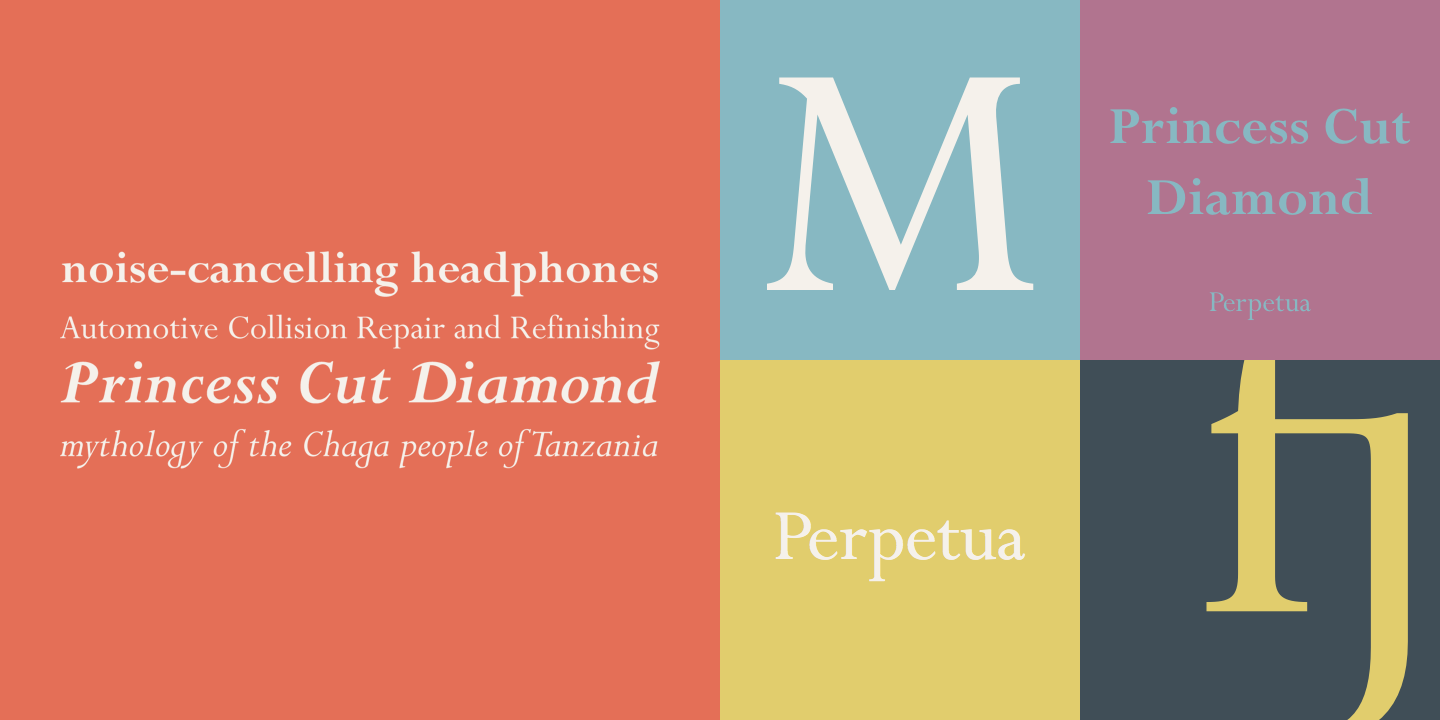
Perpetua Font is ideal for classic book publishing, literary magazines, academic journals, historical documentaries, museum exhibitions, memorial inscriptions, traditional wedding invitations, heritage brand identity, fine art publications, and scholarly works that require timeless elegance and distinguished readability with classical authority.
What makes Perpetua Font truly exciting is its unique stone-carved heritage and distinctive character that bridges ancient Roman inscriptional traditions with modern typographic excellence. This remarkable typeface was originally designed by Eric Gill and captures the essence of classical stone lettering with its chiseled precision and monumental dignity, featuring letterforms that convey both scholarly gravitas and artistic refinement. The font's historical significance and enduring appeal make it perfect for projects that demand both intellectual credibility and timeless aesthetic distinction.
The Perpetua Font family includes essential weights and styles: Regular, Bold, and Italic variations that maintain the distinctive carved character. Each family member preserves the stone-cut authenticity while offering flexibility for traditional publishing and classical design applications. The comprehensive character set supports extended typography needs and classical design elements, making it suitable for formal and ceremonial applications.
When you choose Perpetua Font Free Download, you're selecting a typography masterpiece that connects contemporary design with ancient craftsmanship traditions. This distinguished typeface excels in formal reading applications and ceremonial uses, delivering exceptional dignity and readability while maintaining its classical monument character. Whether you're designing academic publications, memorial materials, heritage brands, or cultural institutions, this font provides the timeless authority and scholarly excellence that resonates with audiences who appreciate classical tradition and intellectual depth.